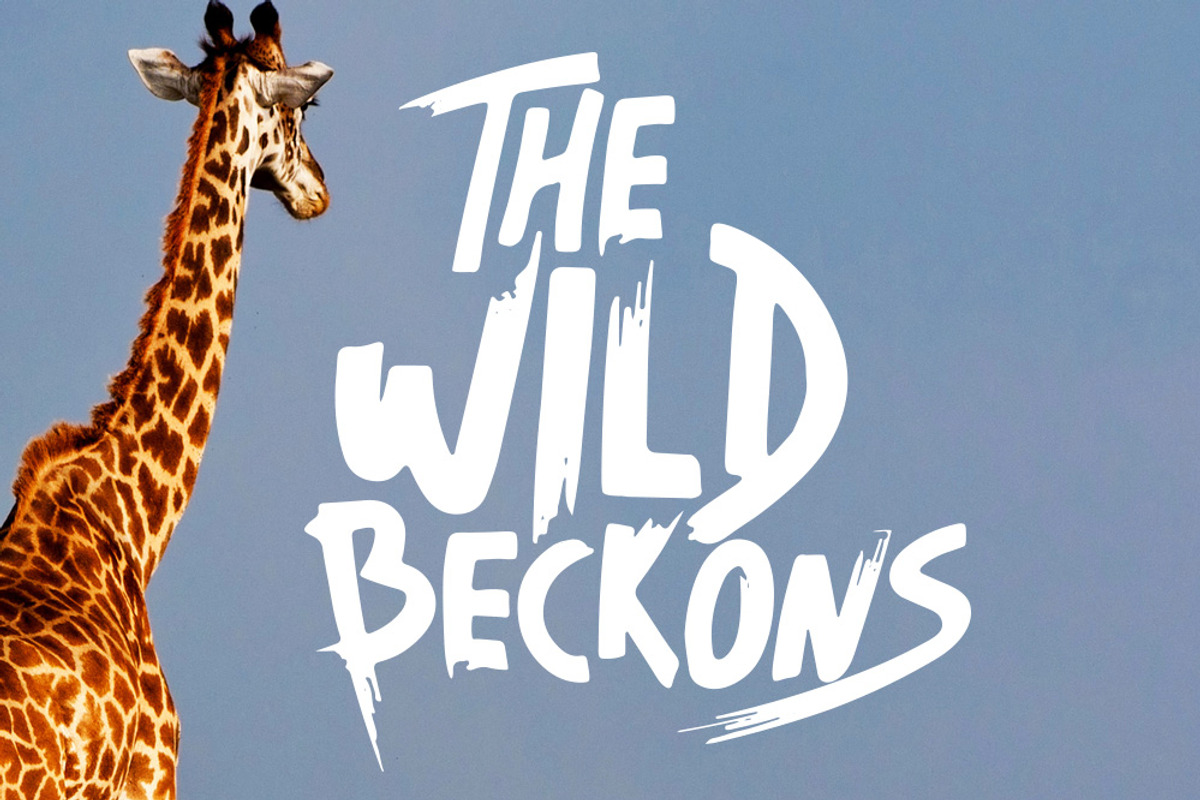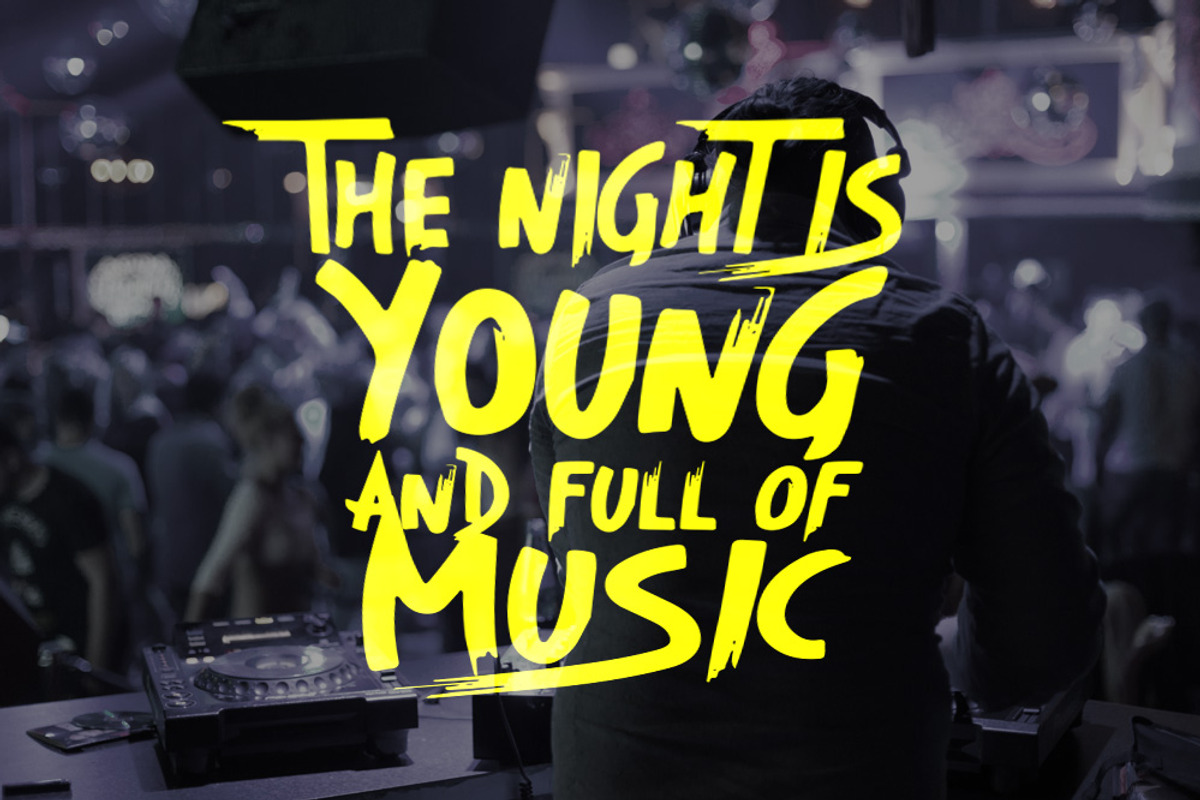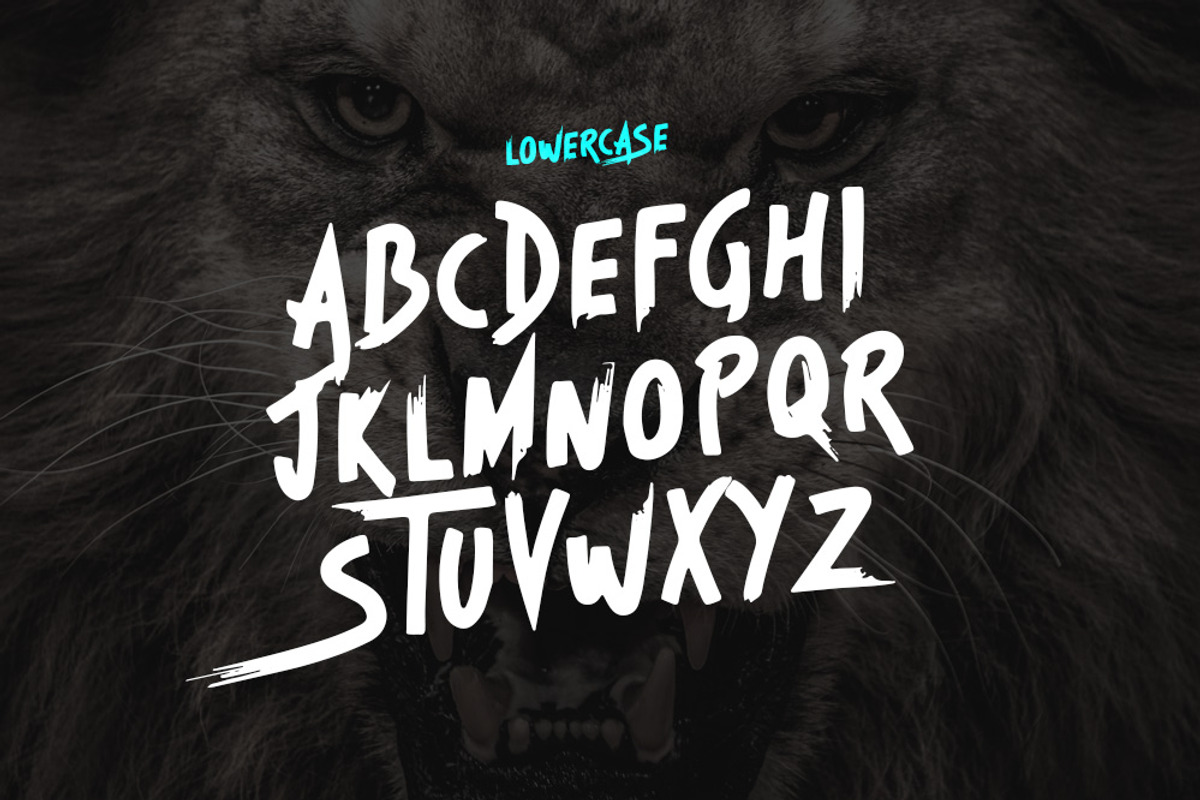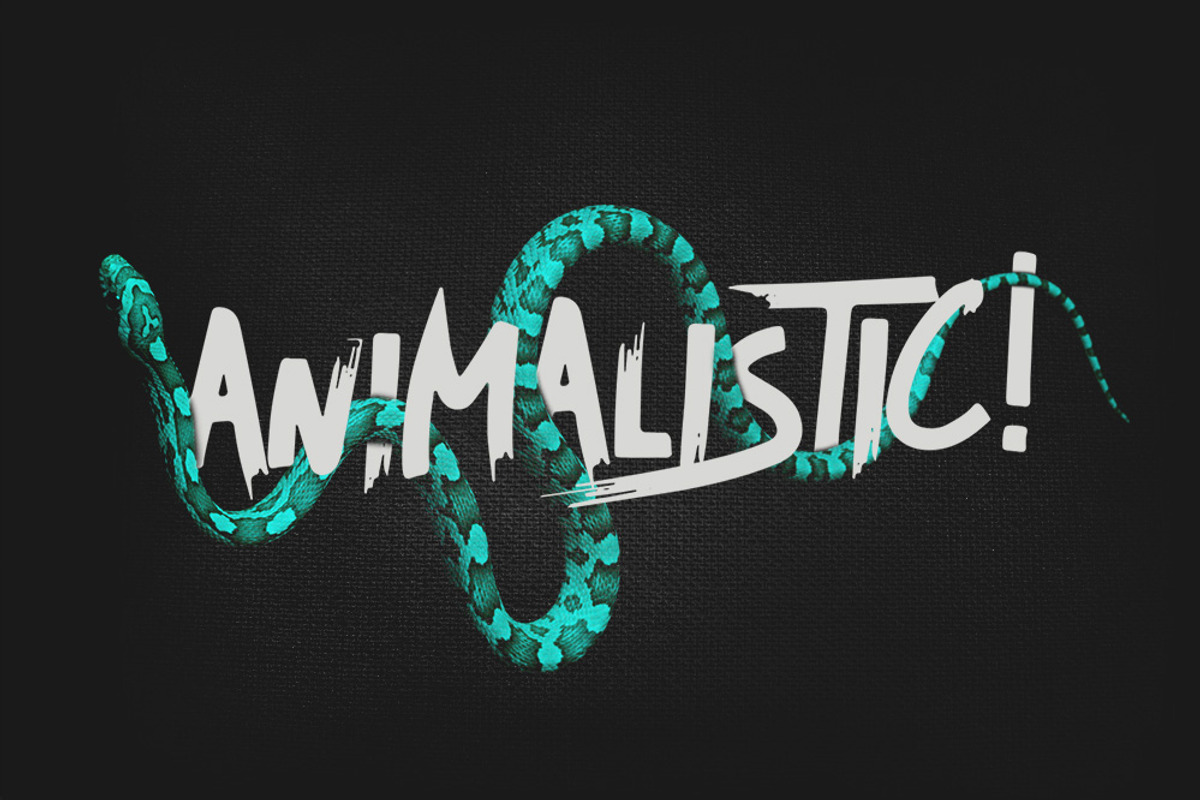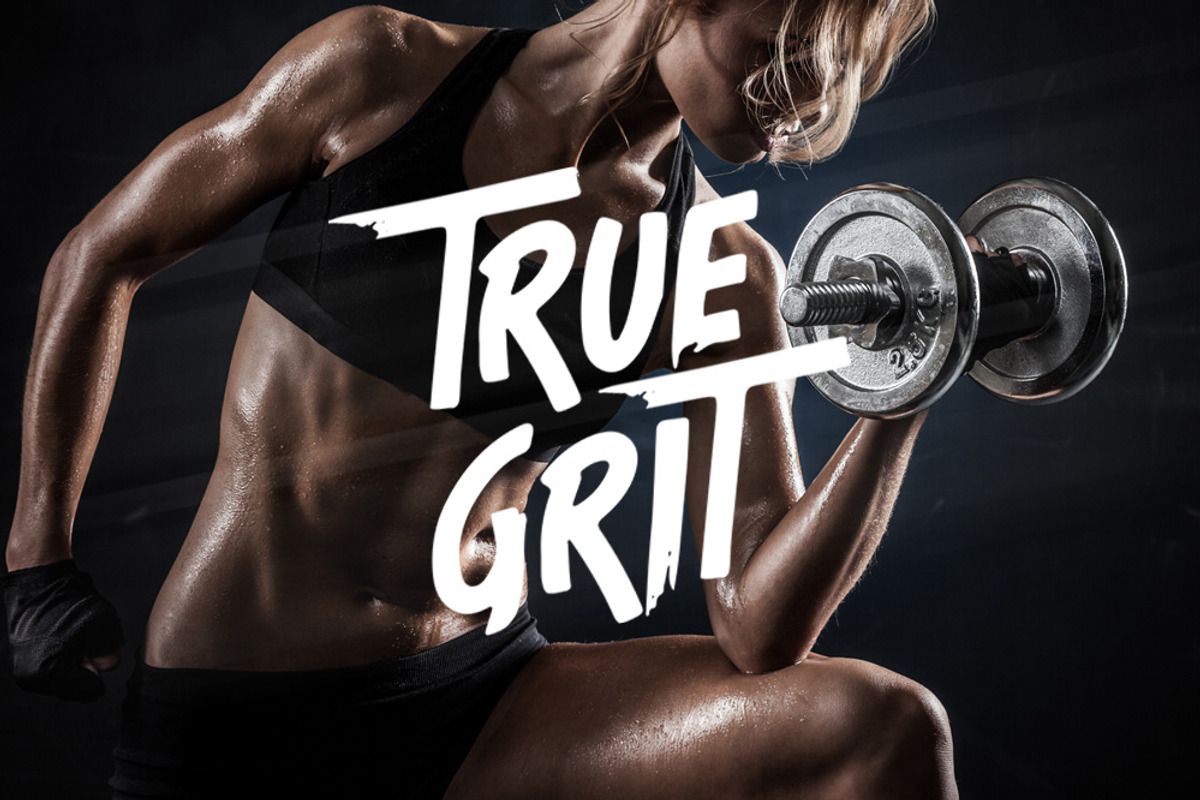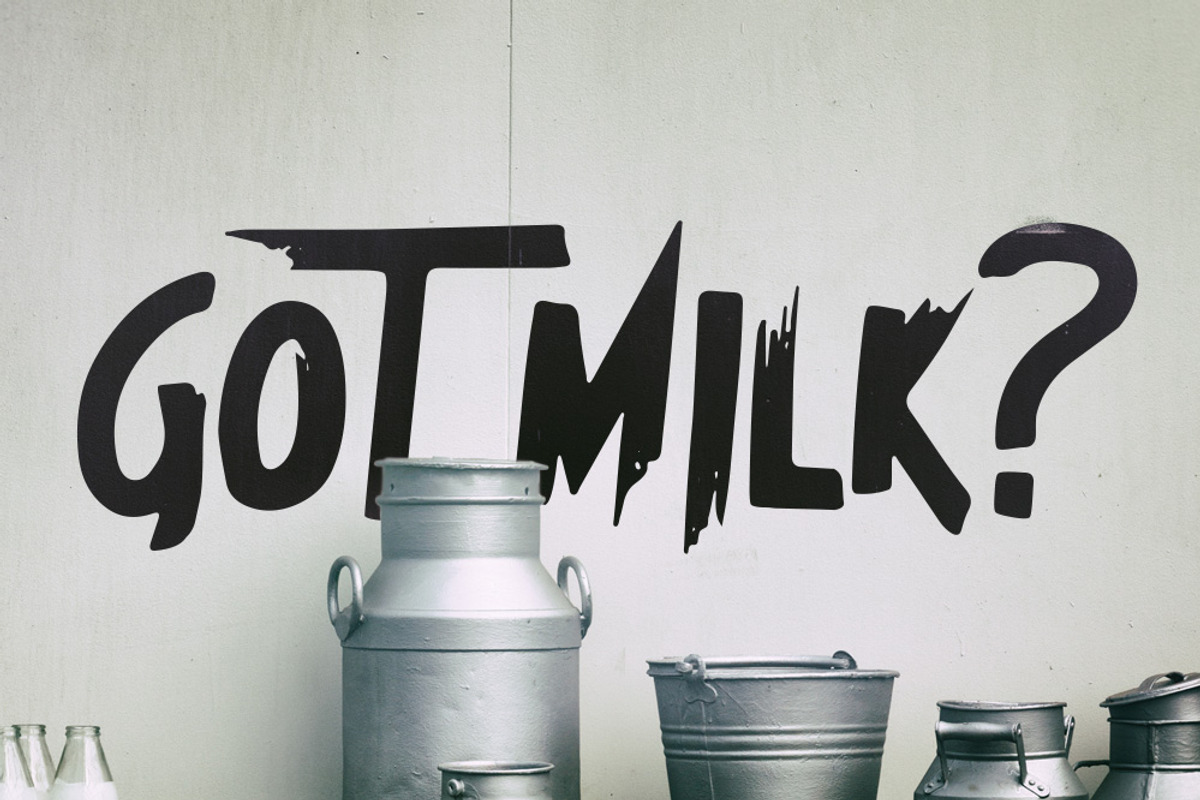
Beast - Brush Font
Beast - Brush Font by Tugcu Design Co. is a font selected for branding, posters, packaging, typography.
- Some letters have alternate versions which you can toggle with Caps Lock.
Why Beast - Brush Font is worth a look
Beast - Brush Font by Tugcu Design Co. fits naturally into Branding, posters, packaging, typography.